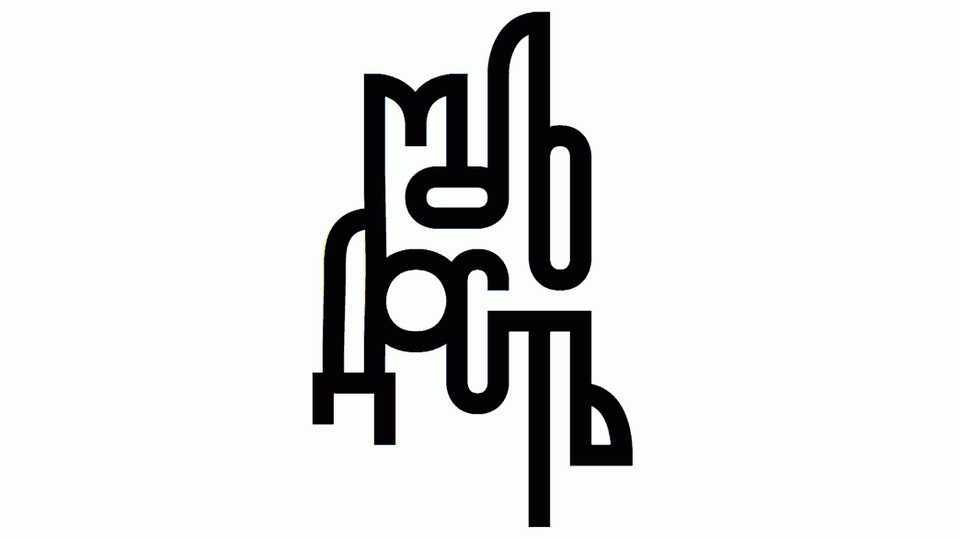
Download Molodo font, a unique display typeface inspired by Vyaz, a type of ancient decorative Cyrillic lettering. Molodo font looks perfect for posters, eye-catching typography and other creative projects.
Designer: Alexey Atapin